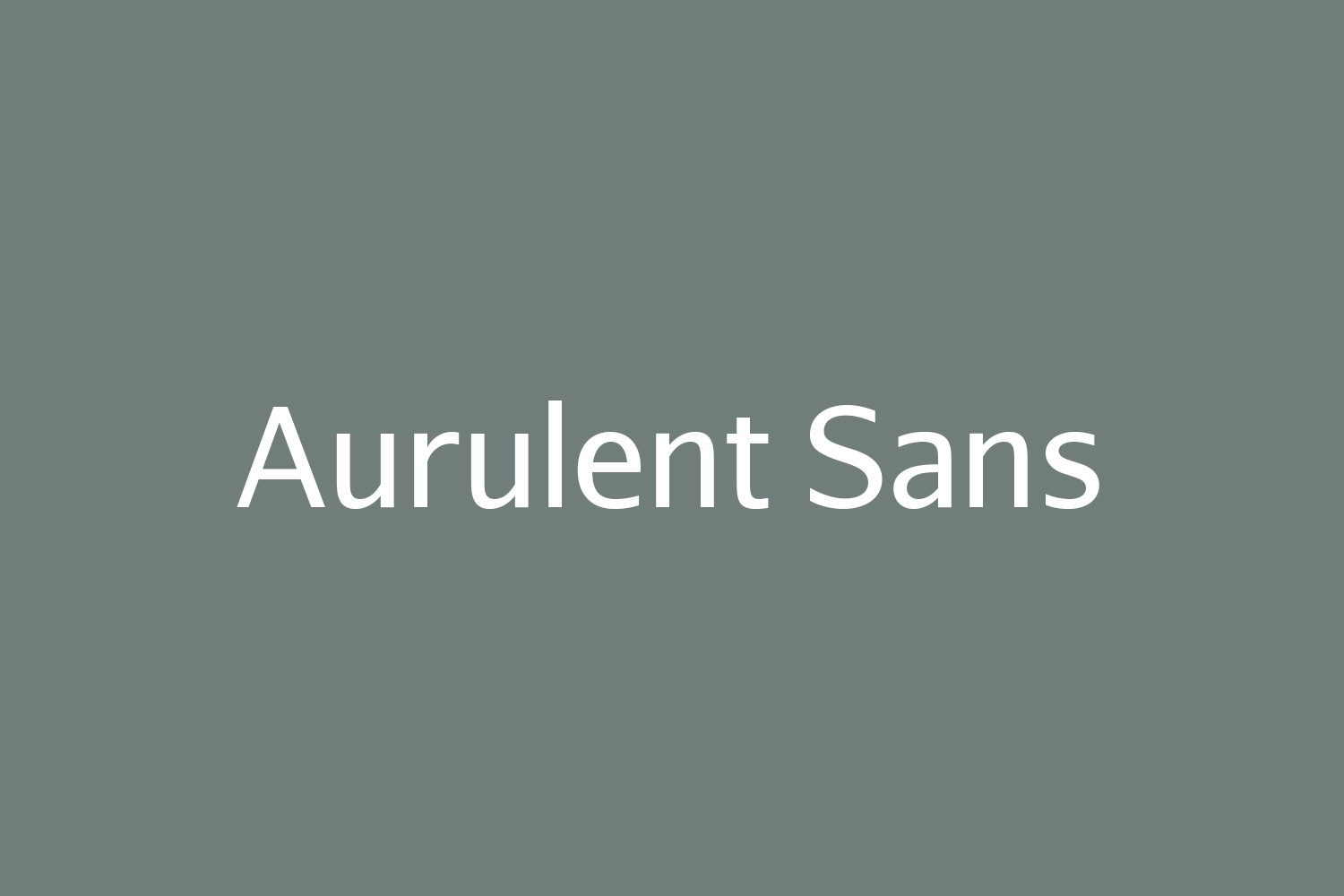
Aurulent Sans Free Font is designed to be used as an interface font on free graphics servers such as X.org. Aurulent is a work in progress; comments are welcome. Aurulent Sans is licensed under the Open Font License (explicit information is embedded in each OTF).
Designed by Stephen G. Hartke